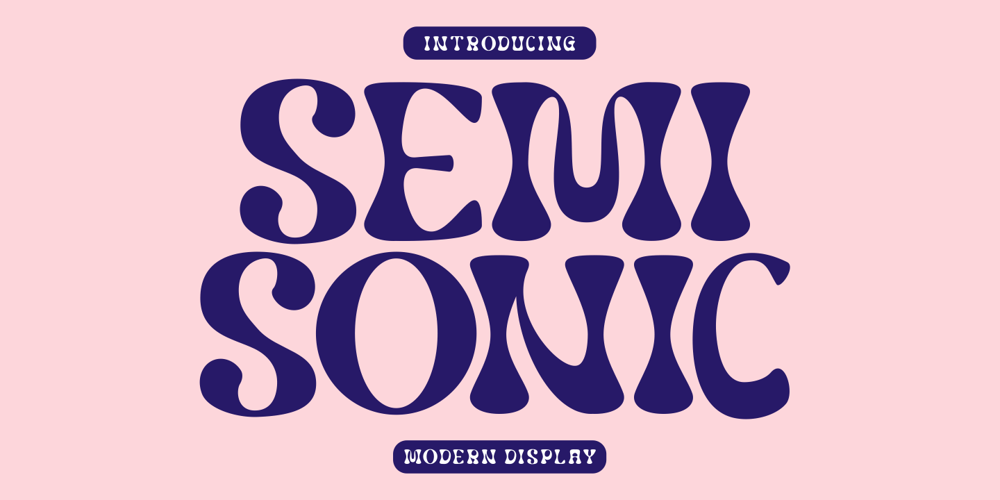
Semisonic Font Family was designed by Putra Novembria Candra Kusuma and published by Putracetol. Semisonic contains 1 styles and family package options. Semisonic is a captivating modern display font that defies convention and stands out from the ordinary. It seamlessly blends the essence of modernity with a fusion of sans serif and decorative elements, creating a font that’s truly exceptional.This unique font is the perfect choice for those seeking to make a bold statement in their designs. Whether it’s a logo, branding materials, invitations, packaging, posters, headlines, business collateral, greeting cards, magazines, or any other creative project, Semisonic will add a touch of individuality and originality.